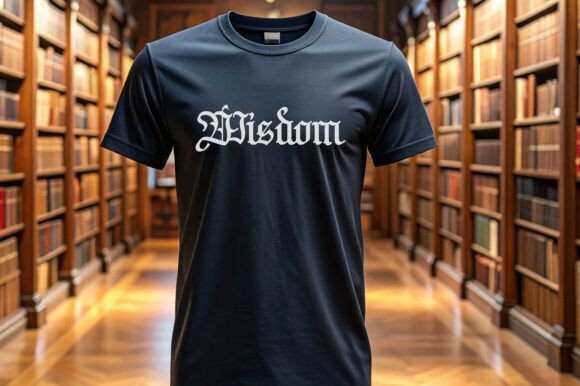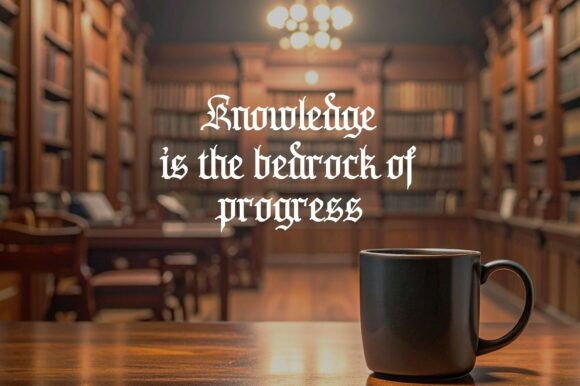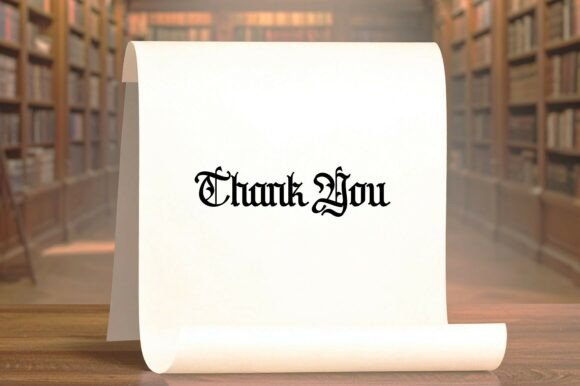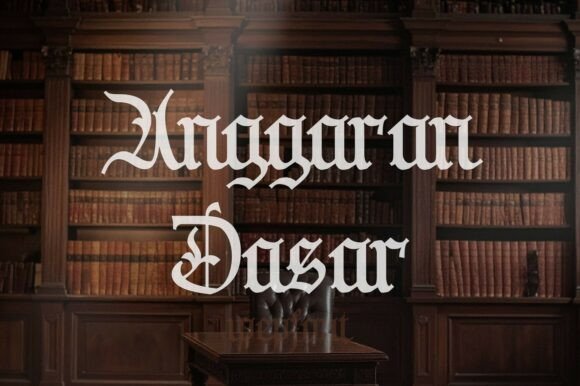
Unveiling the Timeless Elegance of Anggaran Dasar Font
In the realm of typography, few fonts manage to evoke the grandeur and historical significance of ancient manuscripts and traditional gothic scripts. The Anggaran Dasar font is one such remarkable typeface that transports designers and readers alike to an era of detailed craftsmanship and solemn declaration. This striking blackletter font is a masterful blend of ornate, highly decorative capital letters and a dense, calligraphic texture that harks back to medieval European typography.
A Font Steeped in History and Tradition
The Anggaran Dasar font features intricate strokes, sharp serifs, and classic letterforms that give it a very formal, authoritative, and antique aesthetic. Its powerful visual impact is undeniable, making it an excellent choice for projects that require a strong sense of tradition, gravitas, or historical context. Whether you’re working on official documents, emblems, diplomas, historical fiction book covers, or titles for academic or ceremonial events, this font is sure to convey a feeling of timelessness, grandeur, and profound heritage.
Crafting a Sense of Timelessness and Grandeur
What sets Anggaran Dasar apart from other fonts is its ability to immediately transport the viewer to a bygone era. Its highly stylized yet clear execution of classic blackletter typography makes it an exceptional choice for designers seeking to add a touch of elegance and sophistication to their work. The font’s dense, calligraphic texture and ornate capital letters evoke a sense of nostalgia, as if the words themselves are steeped in history and tradition.
Design Applications and Inspiration
Anggaran Dasar is a versatile font that can be used in a variety of design applications, including:
- Official Documents: Use Anggaran Dasar to add a touch of formality and gravitas to official documents, such as certificates, diplomas, and government publications.
- Historical Fiction Book Covers: Create a captivating book cover that transports readers to another era with the Anggaran Dasar font.
- Academic and Ceremonial Events: Use this font to create titles and headings for academic papers, conferences, and ceremonial events, adding a sense of tradition and heritage to your designs.
- Emblems and Logos: Create a lasting impression with Anggaran Dasar, perfect for emblems, logos, and branding materials that require a sense of history and tradition.
Tips for Working with Anggaran Dasar
To get the most out of this remarkable font, consider the following tips:
- Pair with contrasting fonts: Combine Anggaran Dasar with a more modern, sans-serif font to create visual interest and contrast.
- Experiment with colors: Try pairing the font with rich, bold colors to enhance its dramatic effect.
- Pay attention to spacing: Due to its dense, calligraphic texture, be mindful of spacing and kerning to ensure optimal readability.
The Anggaran Dasar font is a true masterpiece of typography, offering designers a unique opportunity to add a touch of history, tradition, and grandeur to their work. Its powerful visual impact, ornate details, and classic letterforms make it an excellent choice for a wide range of design applications. Whether you’re a designer, crafter, or simply a typography enthusiast, Anggaran Dasar is sure to inspire and elevate your creative projects.